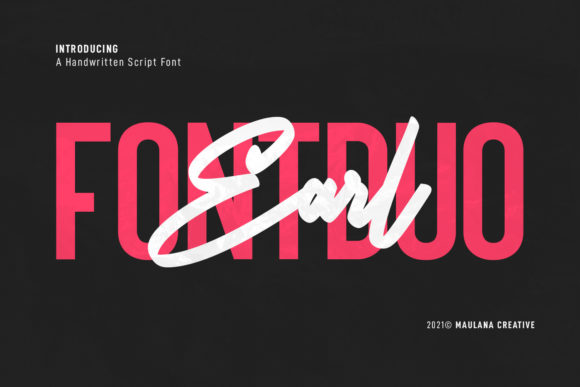
Step into a world of culinary charm and visual delight with Earl, the exclusive font duo that captures the essence of food artistry. This remarkable creation by Maulana Creative blends the elegance of handwritten strokes with the clean precision of sans serif lines, offering a symphony of styles that elevates your food packaging designs to new heights of sophistication.
Embark on a sensory journey as Earl's graceful curves mimic the swirls of rich chocolate ganache, while its sharp edges define the crisp layers of a flaky croissant. This font duo is a visual masterpiece, a testament to the beauty and diversity found in the world of food.
With Earl, your food packaging transforms into an extension of your culinary creations, a canvas upon which you paint stories of taste and texture. Engage your customers' appetites with the allure of Earl's hand-crafted characters. Let the flowing lines of the handwritten font evoke the warmth of a home-cooked meal, while the clean lines of the sans serif font add a touch of modern elegance.
Earl's versatility extends beyond food packaging. Its dual nature allows it to seamlessly transition from logo design to social media posts, from movie titles to book covers. Unleash your creativity and explore the endless possibilities that await with this captivating font duo.
Step into the realm of culinary artistry, where Earl's enchanting embrace awaits you. Let your designs flourish with the timeless beauty of hand-crafted strokes and the crisp precision of modern lines. With Earl, your food packaging becomes a masterpiece, a reflection of your passion for culinary excellence.